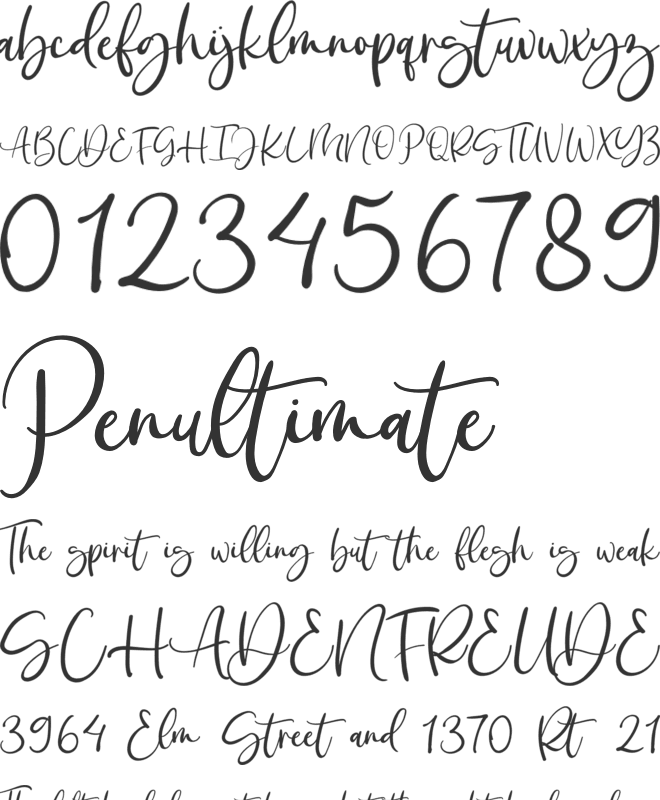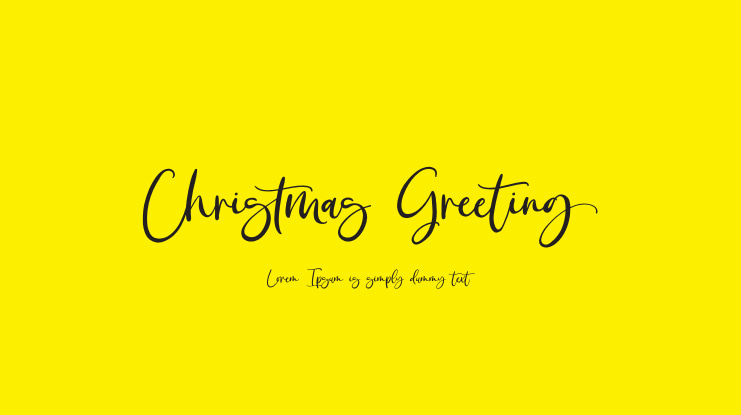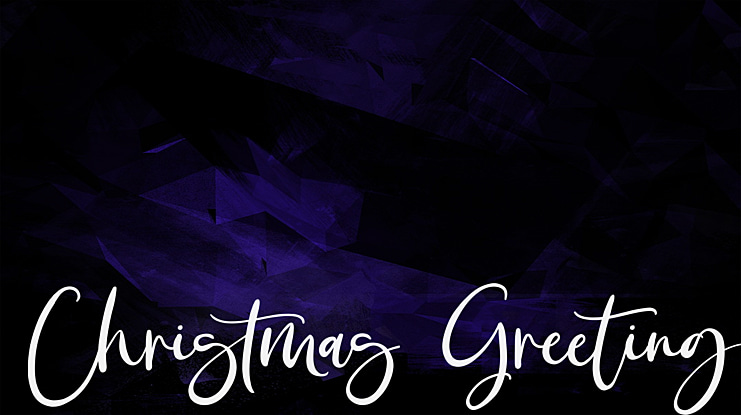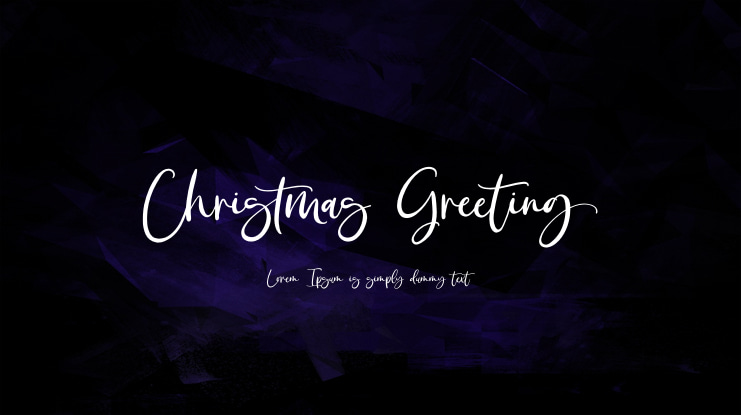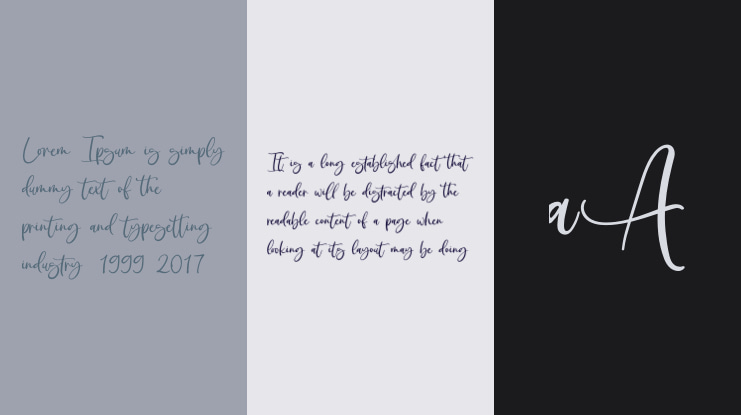
Christmas Greeting Font
Christmas Greeting is a natural hand writing script, was built with OpenType and True Type features and includes beginning and ending swashes, alternate swash characters for most lowercase letters, numbers, punctuation, alternates, ligatures and it also supports other languages. Every single letters have been carefully crafted to make your text looks beautiful.
This font is ideal for branding and decorate your any project, are perfect for wedding invitation or your blog. Also with their help, you can create a logo or beautiful frame for your home. Or just use for your small project, book covers, stationery, marketing, magazines and more.